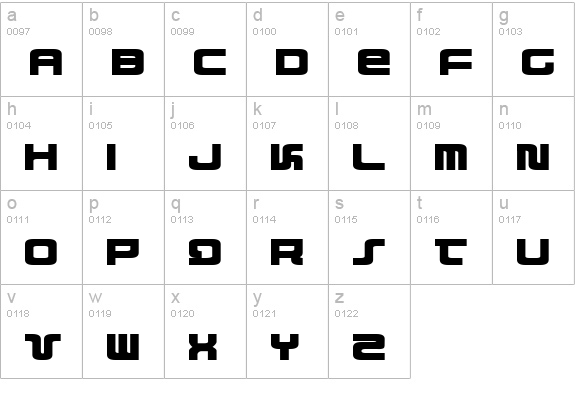
Direktor Expanded is a distinctive, extended-width variant in the Direktor typeface family \xE2\x80\x94 well suited to design and typography projects.
Direktor Expanded font is a modern and stylish typeface that exudes sophistication and versatility. With its clean lines and bold presence, this font is perfect for creating eye-catching designs that demand attention. The expanded version of Direktor adds an extra level of impact, making it ideal for headlines, branding, and any project that requires a strong visual presence. What's even better is that Direktor Expanded font is available for free download at FontsMarket.com. This means you can access this high-quality font without any cost, making it a valuable addition to your design toolkit. Don't miss out on the opportunity to elevate your projects with the striking Direktor Expanded font – download it for free today!